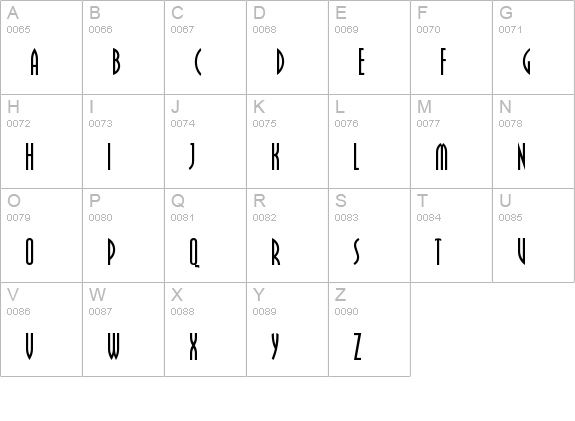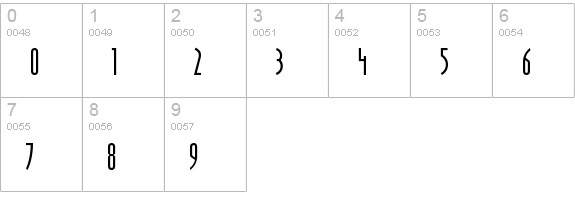
Pritchard Std font is a modern and stylish typeface that exudes elegance and sophistication. With its clean lines and sharp angles, this font is perfect for a wide range of design projects, from branding to editorial layouts. The versatility of Pritchard Std makes it a must-have for designers looking to add a touch of sophistication to their work. What's even better is that Pritchard Std is available for free download at FontsMarket.com. This means you can easily access this stunning font and use it in your projects without breaking the bank. Don't miss out on the opportunity to elevate your designs with Pritchard Std font - download it today and see the difference it can make!